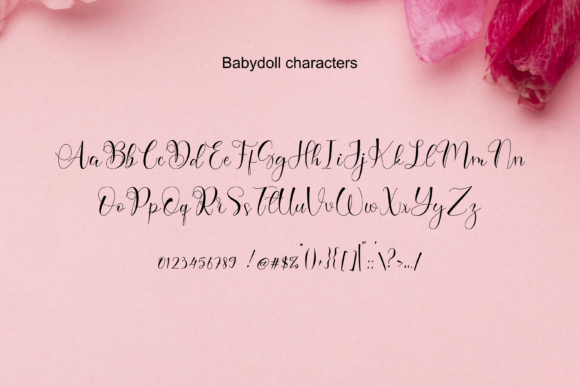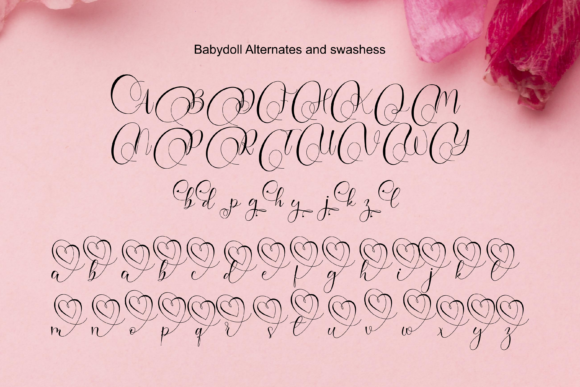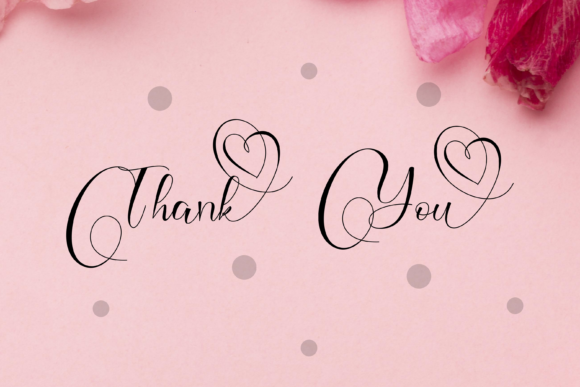
Baby Doll Font
About Baby Doll Font
Baby doll is a romantic and sweet handwritten font with characters and alternates that seem to dance along the baseline. It will add a luxurious spark to any design or project that you wish to create!